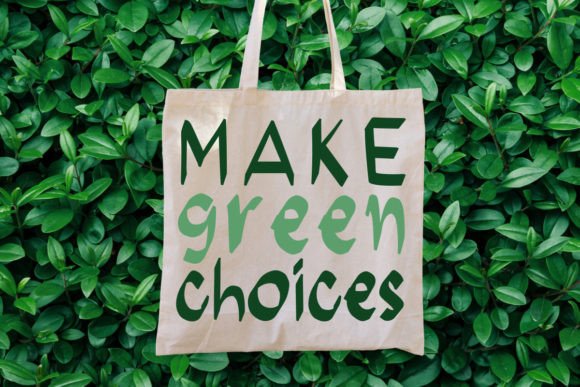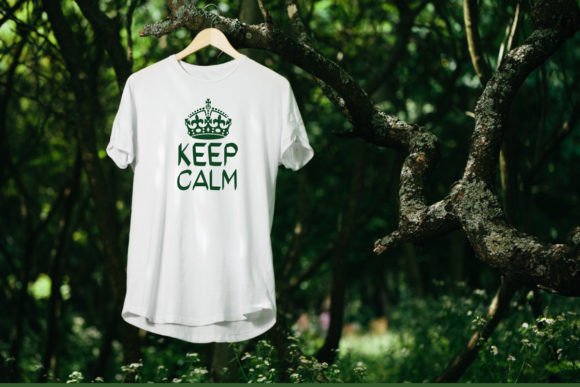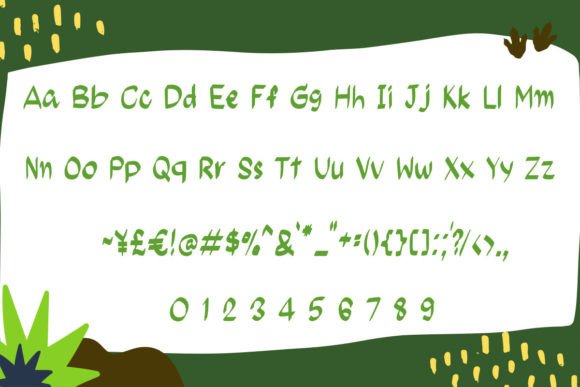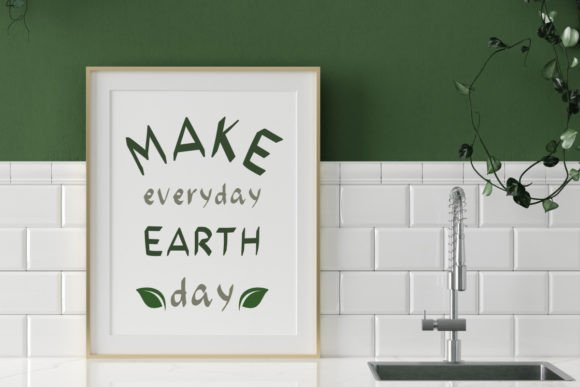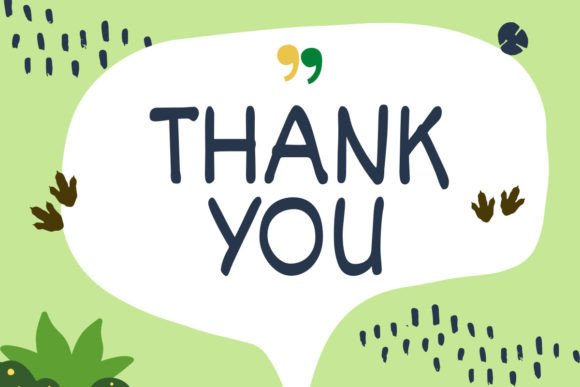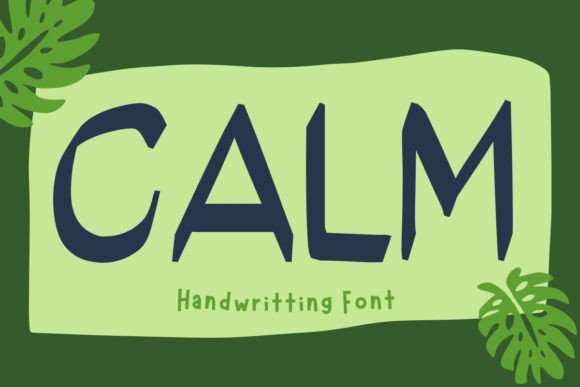
Introducing Calm Font: Adding a Touch of Whimsy to Your Designs
Are you tired of using the same old fonts in your designs? Look no further than Calm Font, a fun and playful handwritten font that’s perfect for adding a touch of personality to your creations. In this article, we’ll take a closer look at Calm Font, its features, and how it can elevate your designs.
What is Calm Font?
Calm Font is a beautiful, handwritten font that’s designed to add a touch of whimsy to your designs. It’s a fun and playful font that’s perfect for titles, headings, or words that need a more dramatic emphasis. With its unique and elegant lettering style, Calm Font is sure to make your designs stand out from the crowd.
Key Features of Calm Font
So, what makes Calm Font so special? Here are some of its key features:
- Handwritten style: Calm Font has a beautiful, handwritten style that’s perfect for adding a personal touch to your designs.
- Unique lettering: Each letter in Calm Font has its own unique character, making it perfect for adding a touch of personality to your designs.
- Dramatic emphasis: Calm Font is perfect for titles or words that need a more dramatic emphasis, making it ideal for designers who want to create eye-catching designs.
- Versatile: Calm Font can be used for a wide range of design projects, from branding and advertising to packaging and more.
Why Use Calm Font?
So, why should you use Calm Font in your designs? Here are just a few reasons:
- Adds personality: Calm Font adds a touch of personality to your designs, making them more engaging and memorable.
- Enhances creativity: With its unique and elegant lettering style, Calm Font can help inspire your creativity and take your designs to the next level.
- Perfect for titles and headings: Calm Font is perfect for titles and headings, making it ideal for designers who want to create eye-catching designs.
Design Ideas Using Calm Font
Calm Font is a versatile font that can be used for a wide range of design projects. Here are some design ideas to get you started:
- Branding and advertising: Use Calm Font to create eye-catching logos, posters, and advertisements.
- Packaging design: Use Calm Font to add a touch of personality to your packaging designs.
- Social media graphics: Use Calm Font to create engaging social media graphics that stand out from the crowd.
- Invitations and greeting cards: Use Calm Font to create beautiful invitations and greeting cards.
In conclusion, Calm Font is a beautiful, handwritten font that’s perfect for adding a touch of whimsy to your designs. With its unique and elegant lettering style, Calm Font is sure to make your designs stand out from the crowd. Whether you’re a designer, crafter, or DIY enthusiast, Calm Font is a great addition to your font library.